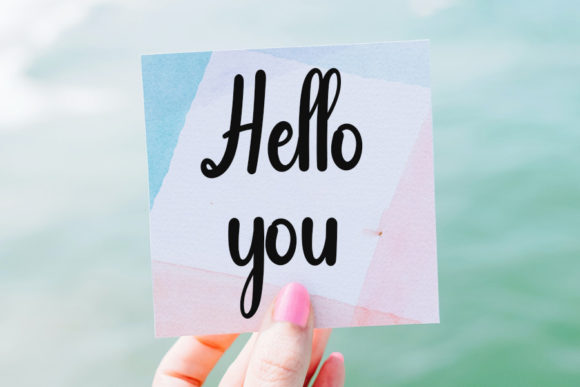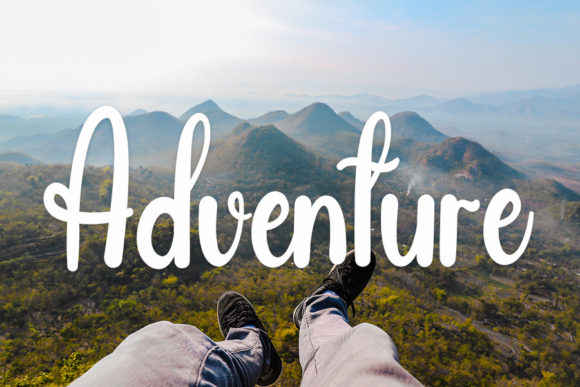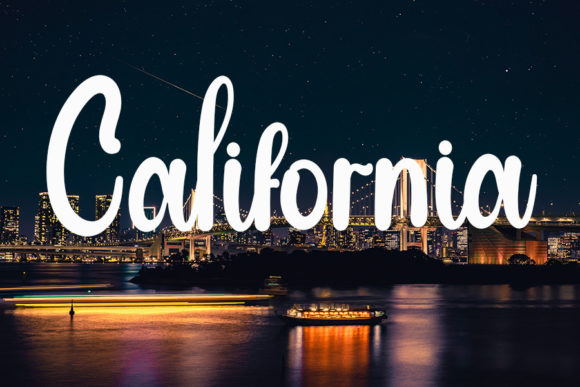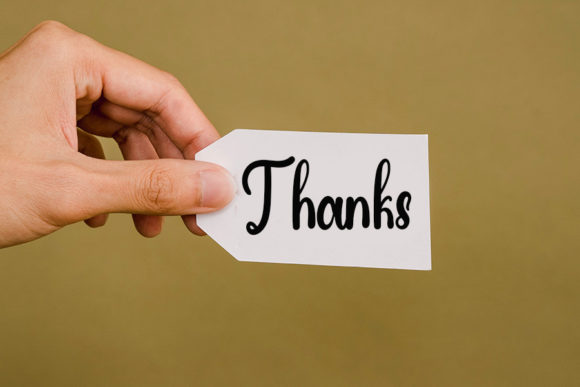
Baby Bunny Font: A Friendly Handwritten Delight for Designers and Crafters
In the world of typography, a font can make all the difference in the aesthetic and feel of a design project. For those seeking a friendly, approachable, and yet classy handwritten font, Baby Bunny is an excellent choice. This charming font is carefully designed to capture the hearts of designers and crafters alike, offering a perfect blend of traditional calligraphic influences with a modern, fresh twist.
The Charm of Baby Bunny Font
Baby Bunny Font is a delightful addition to any designer’s toolkit, boasting a warm and inviting personality that shines through in every letter. Its friendly demeanor makes it an ideal choice for projects that require a personal touch, such as greeting cards, invitations, branding, and packaging. The font’s classy calligraphic roots provide a sophisticated backdrop, ensuring that it remains versatile and suitable for a wide range of applications.
Design Features and Characteristics
One of the standout features of Baby Bunny Font is its meticulous design. Each letterform is crafted with care, reflecting a harmonious balance between elegance and playfulness. The font’s contemporary feel ensures that it stays relevant and appealing, even in today’s fast-paced design landscape. Some of its key characteristics include:
- Handwritten Style: Baby Bunny boasts a genuine handwritten look, complete with subtle variations in line width and a relaxed, organic feel.
- Calligraphic Influences: The font’s classy roots are evident in its fluid strokes and elegant letterforms, adding a touch of sophistication to any project.
- Contemporary Twist: A modern approach to traditional calligraphy, Baby Bunny Font feels fresh and current, making it perfect for designers looking for a font that bridges the gap between classic and modern.
Use Cases for Baby Bunny Font
The versatility of Baby Bunny Font makes it suitable for a multitude of design projects. Here are some popular use cases:
- Branding and Logo Design: Create a memorable brand identity with a logo that exudes warmth and friendliness.
- Stationery and Invitations: Add a personal touch to greeting cards, invitations, and thank-you notes.
- Packaging: Stand out on store shelves with product packaging that features a unique, handcrafted feel.
- Digital Content: Enhance blog posts, social media graphics, and website content with a font that engages and delights readers.
Why Choose Baby Bunny Font?
In a sea of fonts, Baby Bunny stands out for several reasons:
- Uniqueness: Its distinctive blend of calligraphic elegance and modern simplicity makes it a rare find.
- Emotional Connection: The font’s friendly and approachable nature helps create an instant emotional connection with the audience.
- Versatility: Suitable for both digital and print projects, Baby Bunny Font adapts seamlessly to various design needs.
Baby Bunny Font is more than just a typeface; it’s a design companion that brings warmth, elegance, and a touch of whimsy to any project. Whether you’re a professional designer or a crafter looking for that perfect font to elevate your work, Baby Bunny is sure to delight. Its unique blend of traditional calligraphy and modern flair makes it a versatile and appealing choice for a wide range of design applications. Discover the charm of Baby Bunny Font and let it become your go-to for creating designs that are both beautiful and engaging.